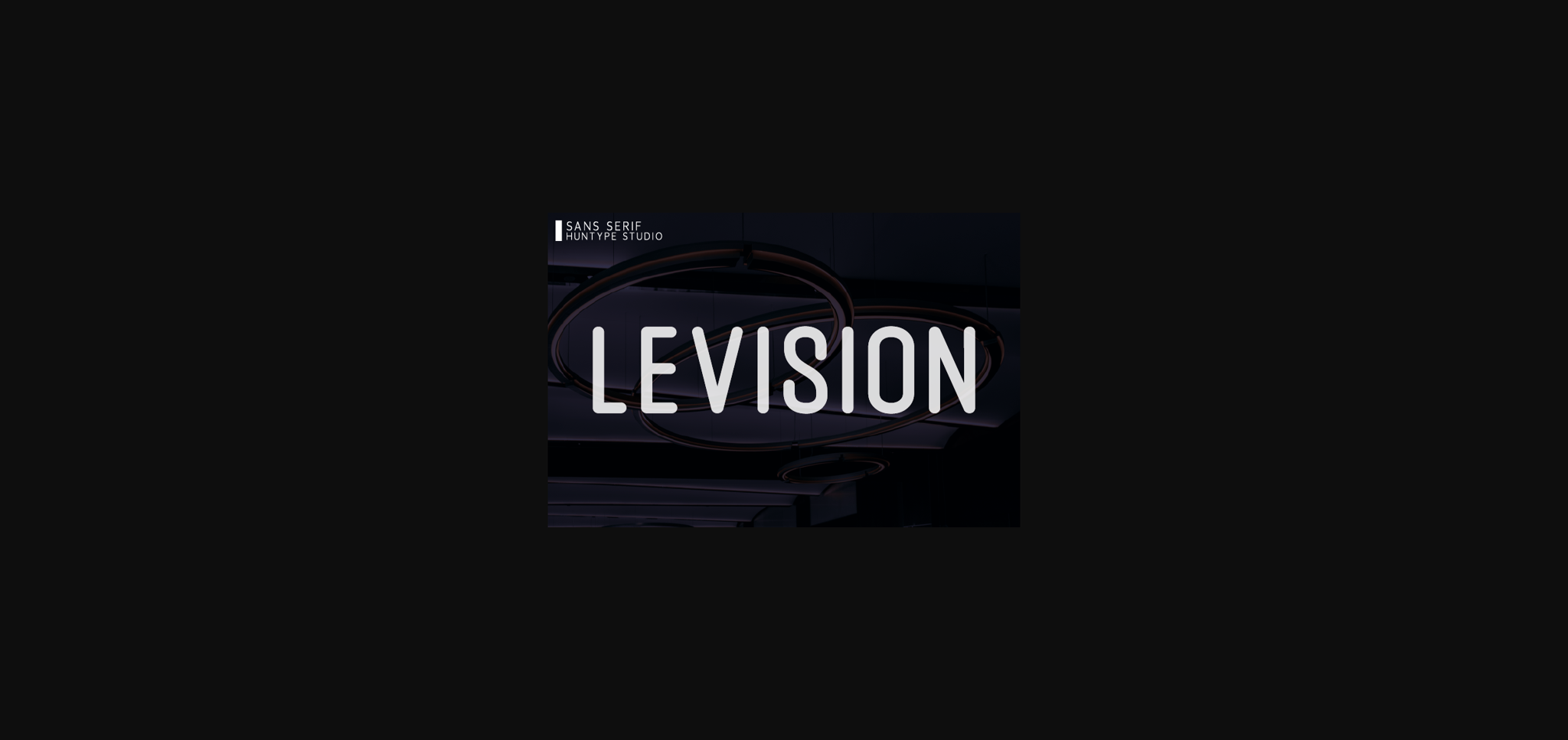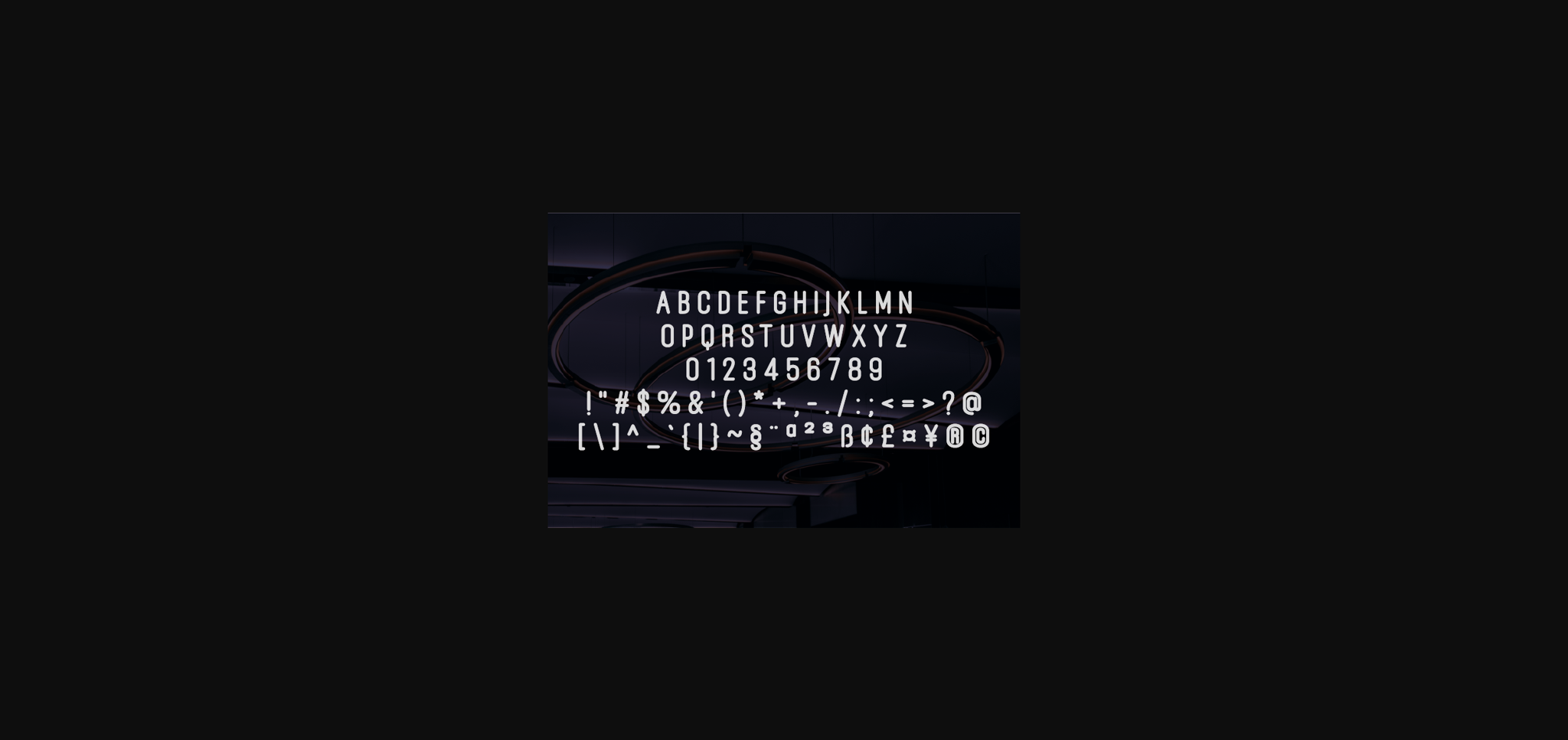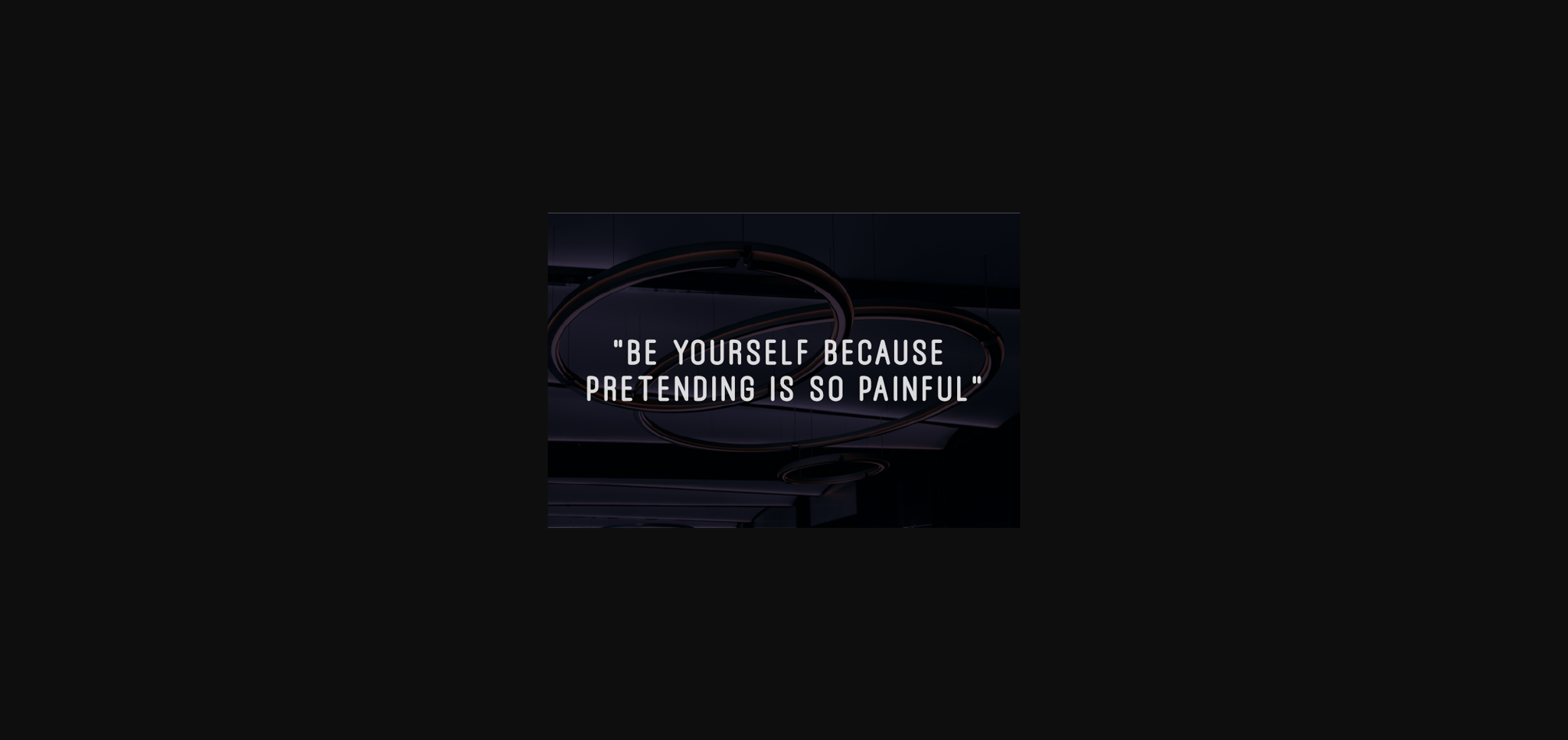
HomeSans Serif FontsLevision Font Sans Serif Fonts Levision Font FacebookXPinterestWhatsApp 1 of 5 ... Levision Font Poster 2... Levision Font Poster 3... Levision Font Poster 4... Levision Font Poster 5... About Levision Font Levision is a bold and simple lettered sans serif font. Add it to your most creative ideas and notice how it makes them come alive! DOWNLOAD NOW People also explored Eva and Adam Font Fidgety Font Fok Font Pertiway Font Hello Little Prince Font Modesty Font Hachimitsu Eagle Cloud Font Reztop 540 0 TagsLevision Font Previous articleSheilvo FontNext articleKeltone Font LEAVE A REPLY Cancel reply Comment: Please enter your comment! Name:* Please enter your name here Email:* You have entered an incorrect email address! Please enter your email address here Website: Save my name, email, and website in this browser for the next time I comment. Personal Use Free Morning Miow Personal Use Free Read more about this font ABC Personal Use Free Read more about this font Klotee Personal Use Free Read more about this font Where the Cookies Personal Use Free Read more about this font BLOG Fonts That Capture the Spirit of New York City New York City is more than just a place—it’s an experience, a rhythm, a visual language... Best Fonts for YouTube Videos: Make Your Thumbnails Stand Out Top 10 Handwritten Fonts That Elevate Your Designs Modern Sans-Serif Fonts That Brands Love in 2025